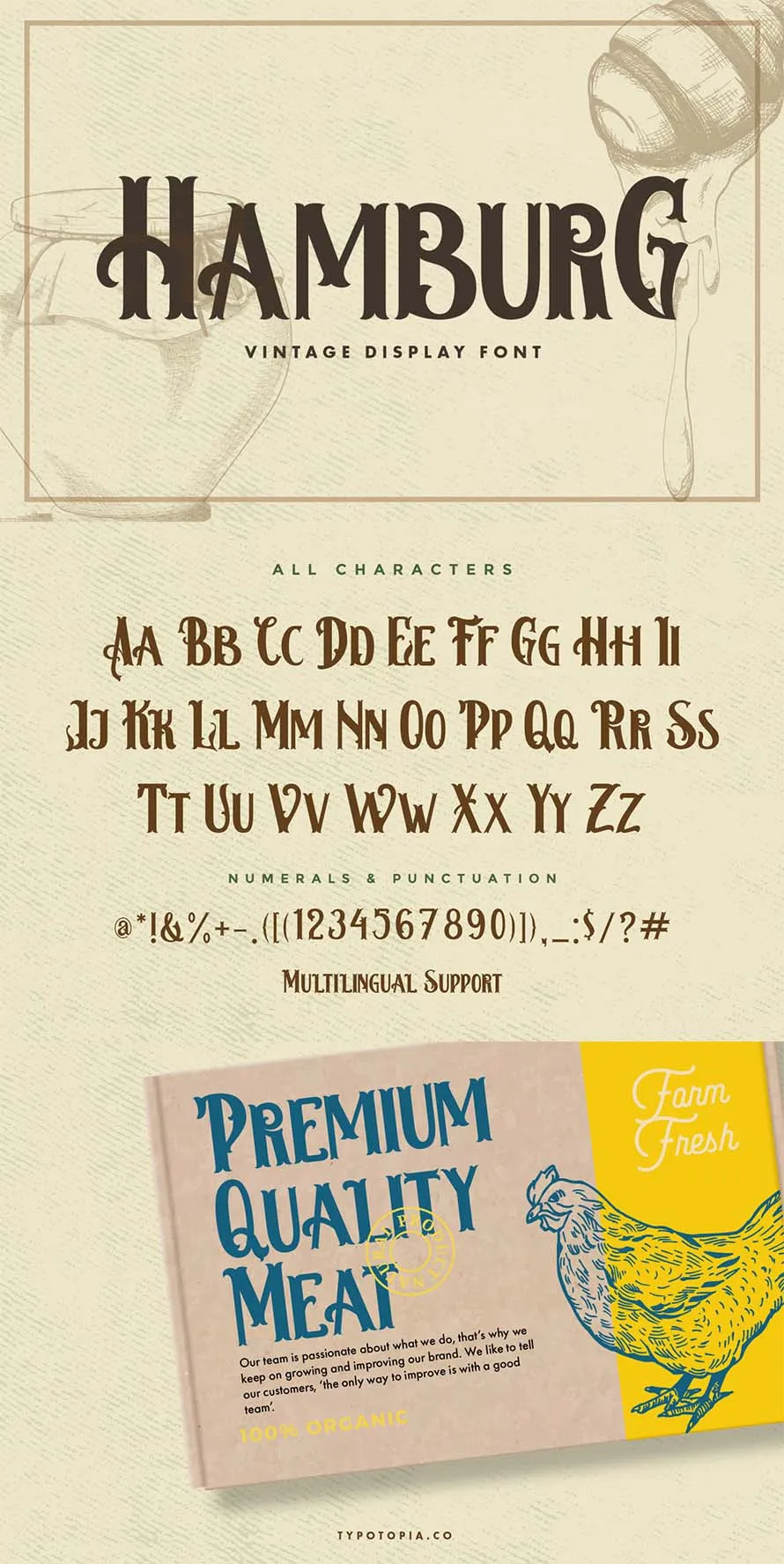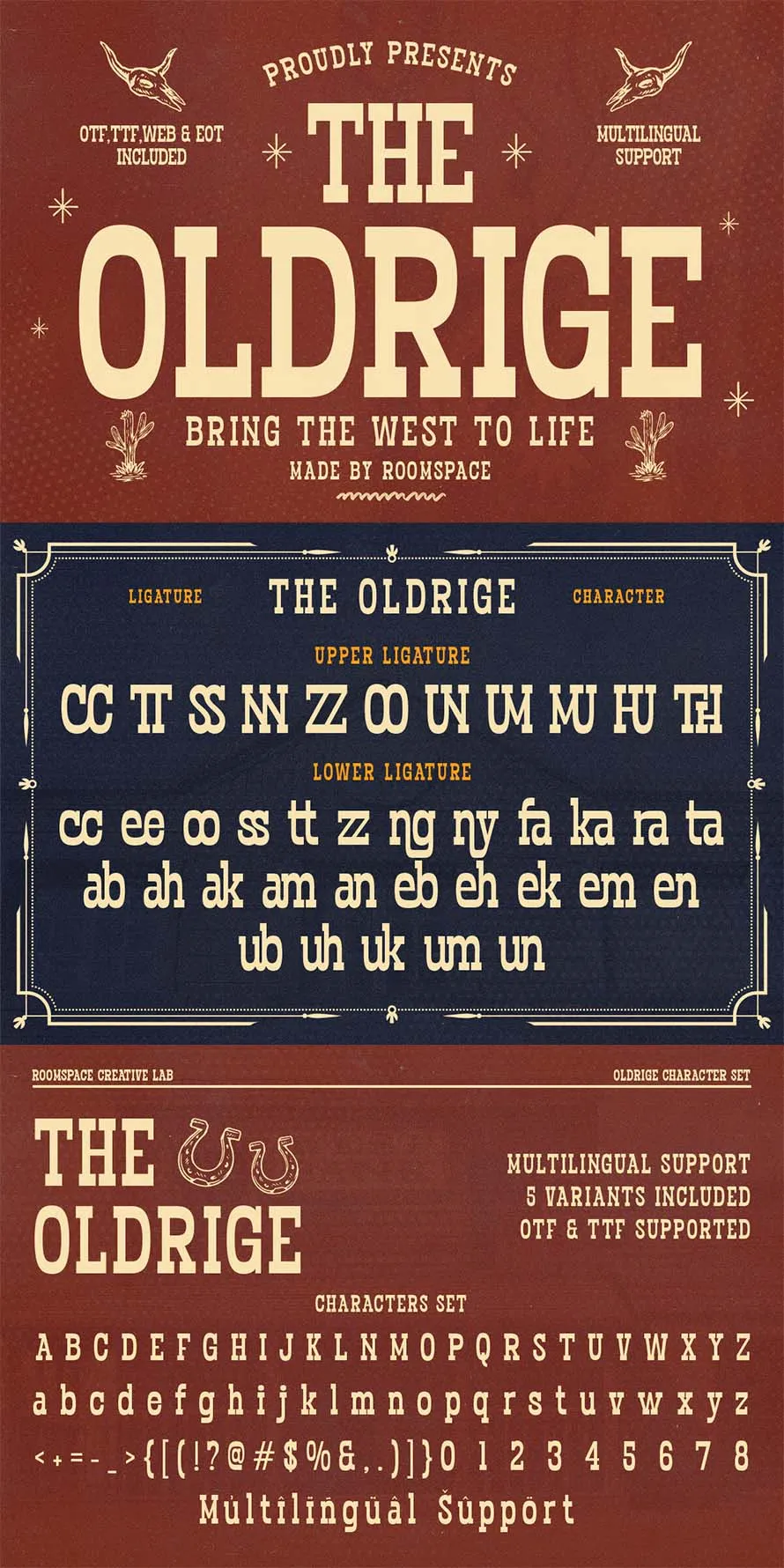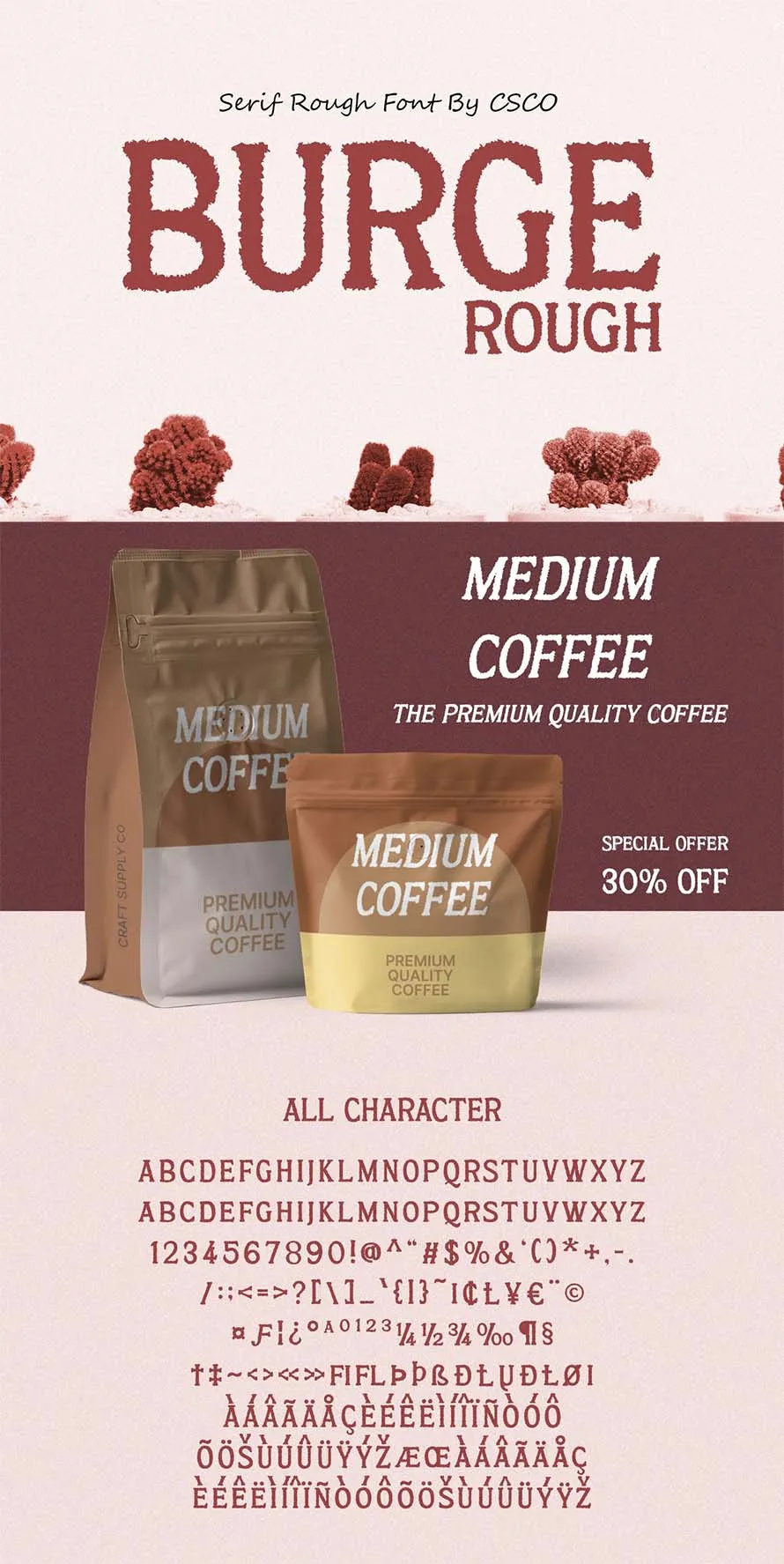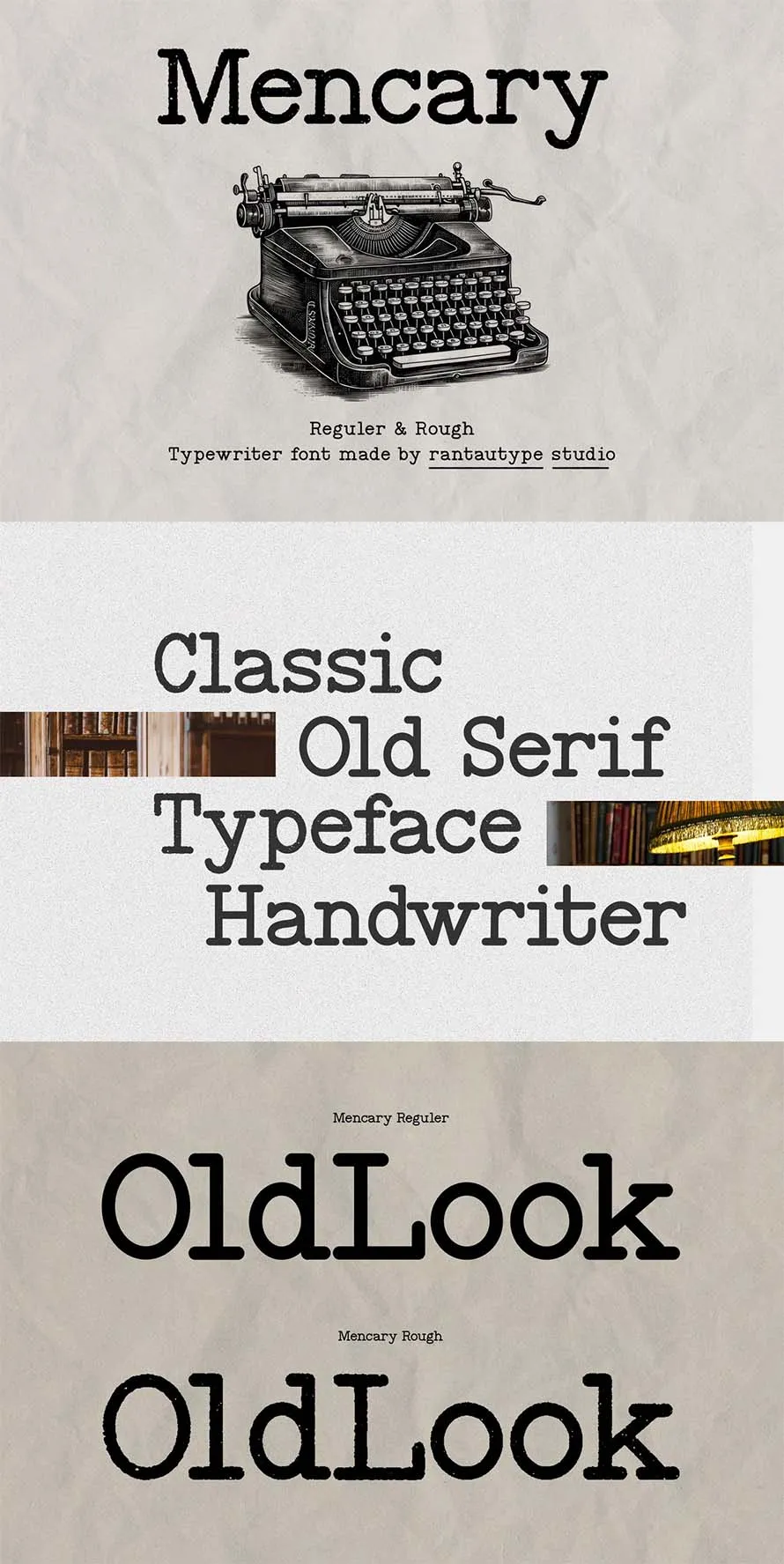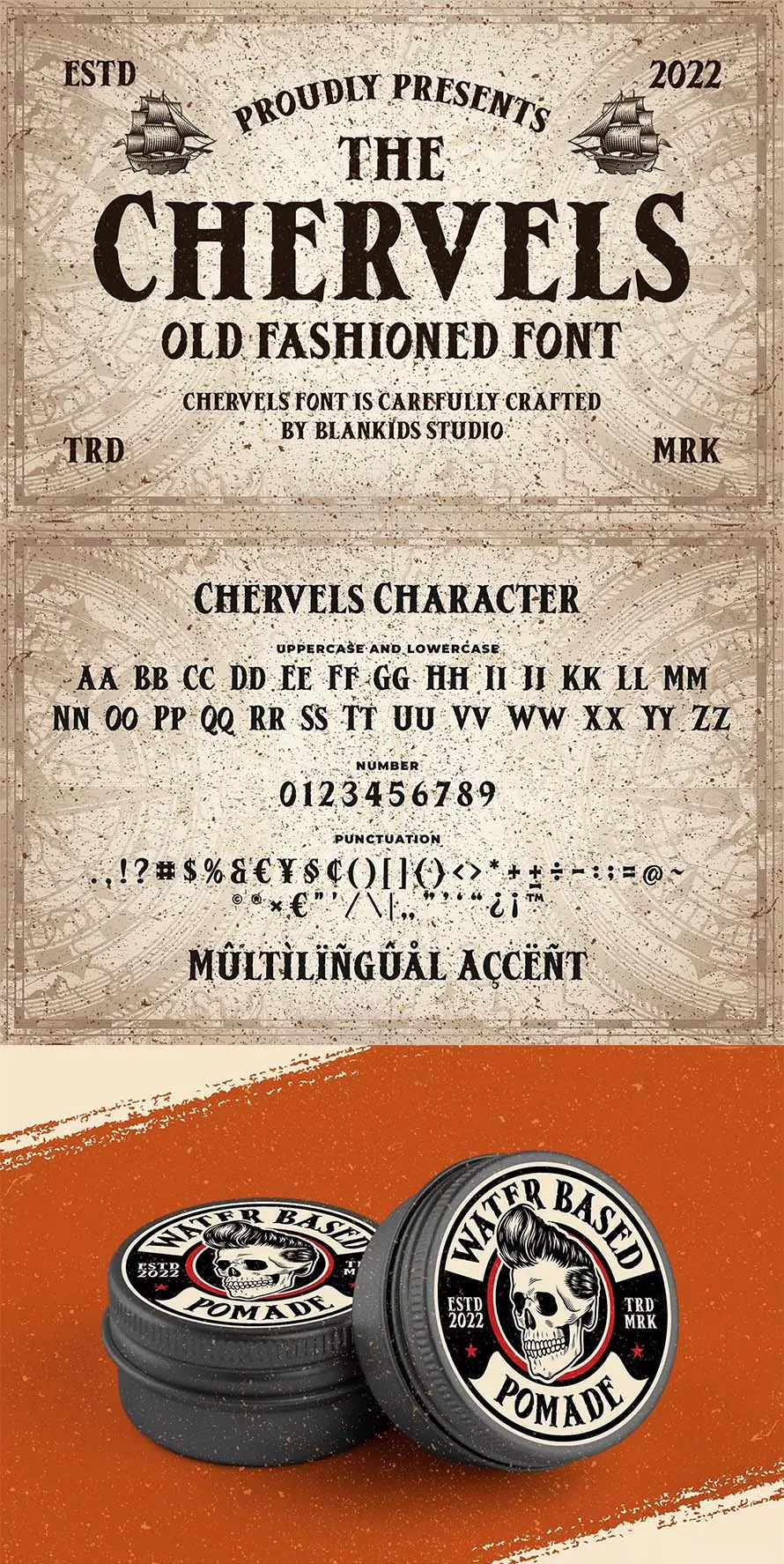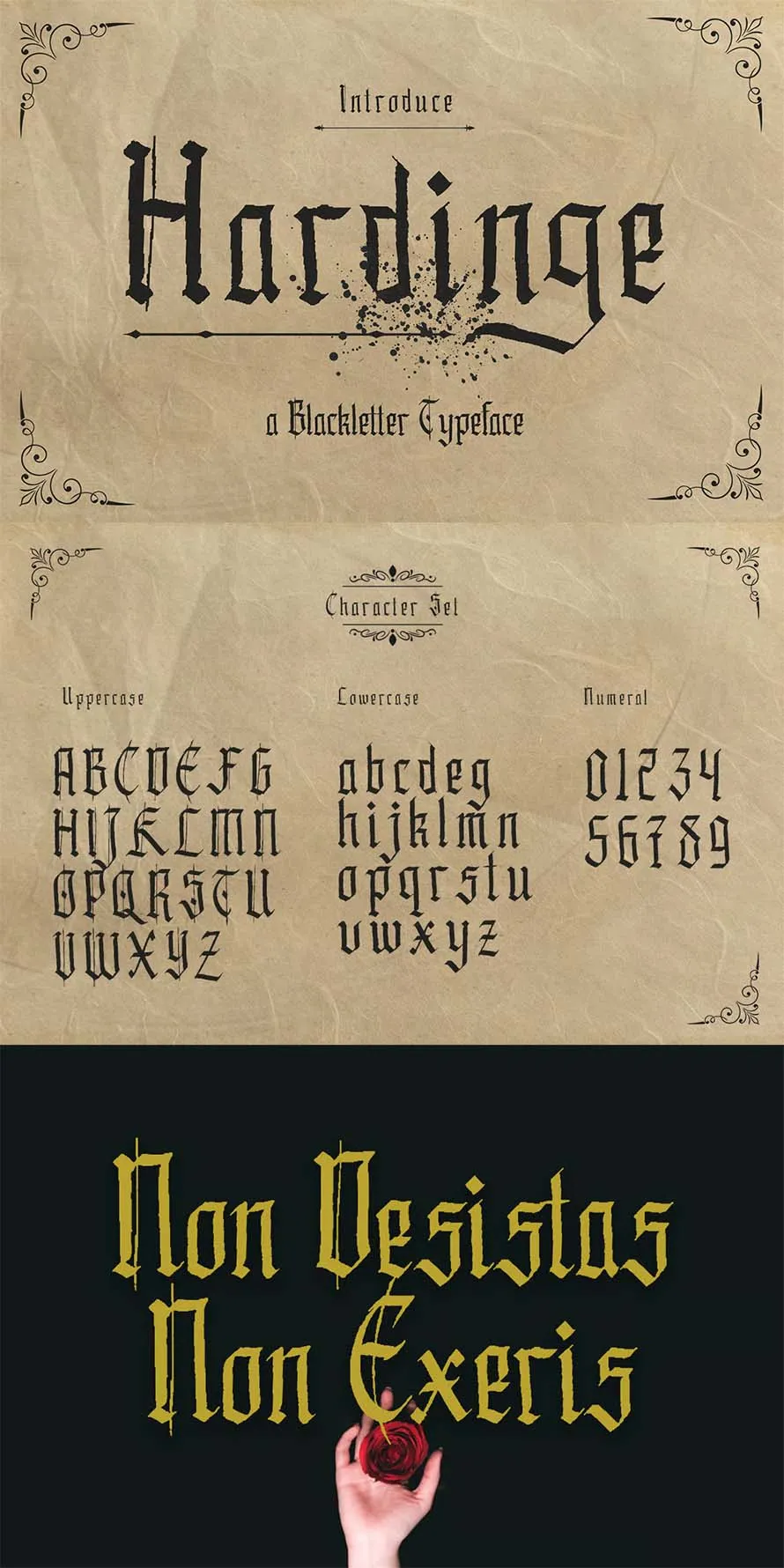
If you grew up in the 80s or 90s, you’ll love these old style serif fonts. This hand-picked collection brings back that classic print shop feel, with lettering like the kind you saw on cereal boxes, book covers, and record sleeves. Download the best old style serif fonts, and use classic serif fonts for logos, posters, or any project that needs a vintage look.
Old style fonts came from early printing presses, long before computers existed. They have low contrast strokes and rounded serifs comfortable to read in both print and digital designs.
Many designers now mix vintage retro fonts with modern serif fonts to build logos that look old and new at once. This combo works great for coffee shops, clothing brands, and small business labels that want a hand made look without losing readability on screens.
25+ Old Style Serif Fonts for Classic Logos
Vintage Classic Serif – Old Castle
Old Castle is a vintage serif font with a classic look. It has balanced letters and a soft old style feel.
Hamburg Vintage Old Style Serif Fonts
Hamburg is a vintage style font used for simple design work. It fits logos, templates, brochures, videos, ads, and branding.
Oldridge – Western Vintage Display Font
Oldridge is a western style display font with a bold old look. It feels like old frontier signs and posters. It is used for logos, packaging, signage, and headlines.
Burge Rough Old Style Serif Fonts
Burge Rough is a serif font with a rough vintage look. It mixes old style letters with a modern feel.
Mencary A Old Typewriter Font
Mencary is a typewriter style font inspired by old writing machines. It comes in clean and rough styles for different looks.
Chervels an Old Fashioned Font
Chervels is an old fashioned font with a playful vintage look. It is used for book covers, posters, packaging, logos, and merch.
Hardinge – Blackletter Style Typeface
Hardinge is a blackletter style font with a classic old look. It is used for logos, branding, prints, and business cards.
Bistern Vintage Old Style Serif Fonts
Bistern is a vintage style font inspired by old signs and lettering. It has a strong and solid look with a Victorian feel.
It is used for headlines, logos, clothing, invitations, packaging, and ads. It includes letters, numbers, symbols, and decorative extras for simple design work.
Daewon – Greek Font Style
Daewon is a Greek style font used for simple design work. It looks good on posters, book covers, flyers, invitations, and prints.
Westerion a Vintage Display Font
Westerion is a vintage display font with a simple old style look. It is used for t-shirts, quotes, logos, crafts, and basic design work.
Rubbero – Rubber Stamp Condensed Font
Westerion is a vintage display font with a simple old style look. It is used for t-shirts, quotes, logos, crafts, and basic design work.
Sabatons Script – Regular & Stamp style
Sabatons Script is a handwritten font with two styles, regular and stamp. It is used for logos, clothing, invitations, branding, packaging, and ads.
Alburgone – Display Typeface
Alburgone is a hand lettering display font with a nostalgic look. It includes numbers, punctuation, multilingual support, and PUA encoding.
Brains Courage Old Style Serif Fonts
Brains Courage is a Victorian serif font with a classic old look. It is inspired by old signs from the 60s and 70s. It is used for logos, labels, books, magazines, cards, packaging, and ads. It works for simple formal design work with a vintage feel.
Ronders Vintage Old Style Serif Fonts
Ronders is a vintage lettering font with a bold old style look.
Amoky Typeface Grunge Style
Amoky Typeface is a font set with three styles like grunge, lines shading, and stamped.
Sacred Letter Handwritten Font
Sacred Letter is a handwritten font with a soft flowing style. It has special letter shapes and easy access to extra glyphs.
Black Krown Bold Old Font
Black Krown is a bold medieval style font with a handmade look. It is inspired by old lettering and tribal designs.
Oldventure Brush Style Font
Oldventure is a brush style font made with hand drawn strokes.
Bonie – Vintage Font
Bonie is a vintage font with extra letter styles like alternates and ligatures.
The Amberton – A Classic Script
Logos using Horse Saguaro Vintage Font
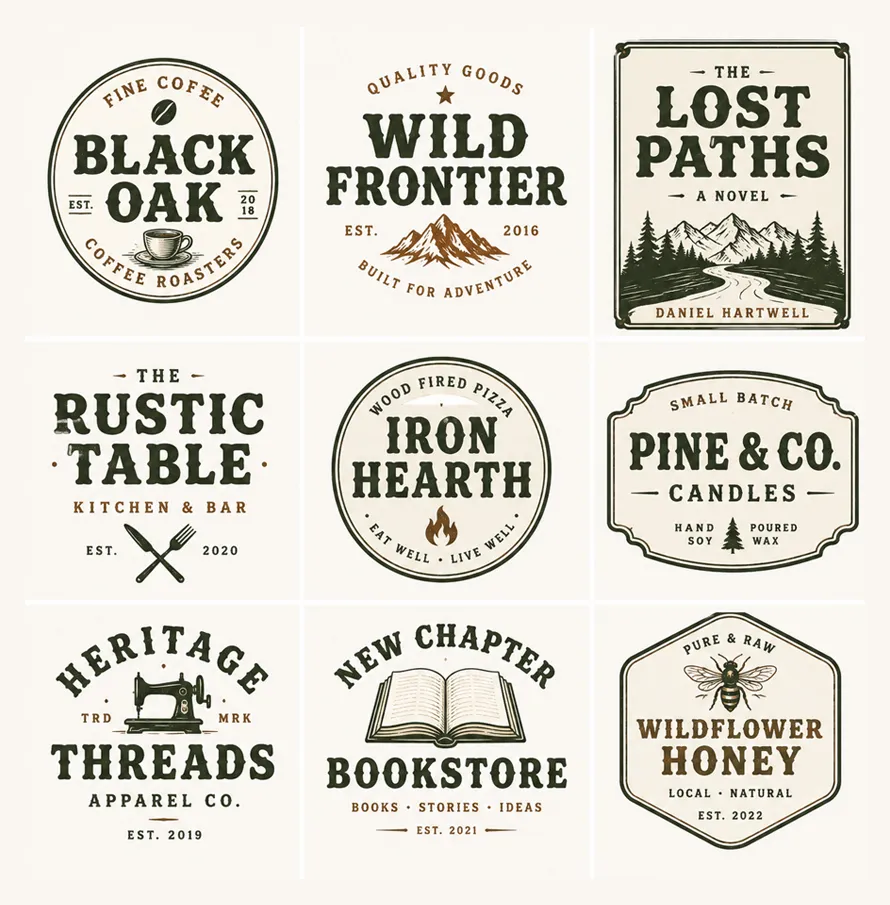
Logos using The Amberton – A Classic Script
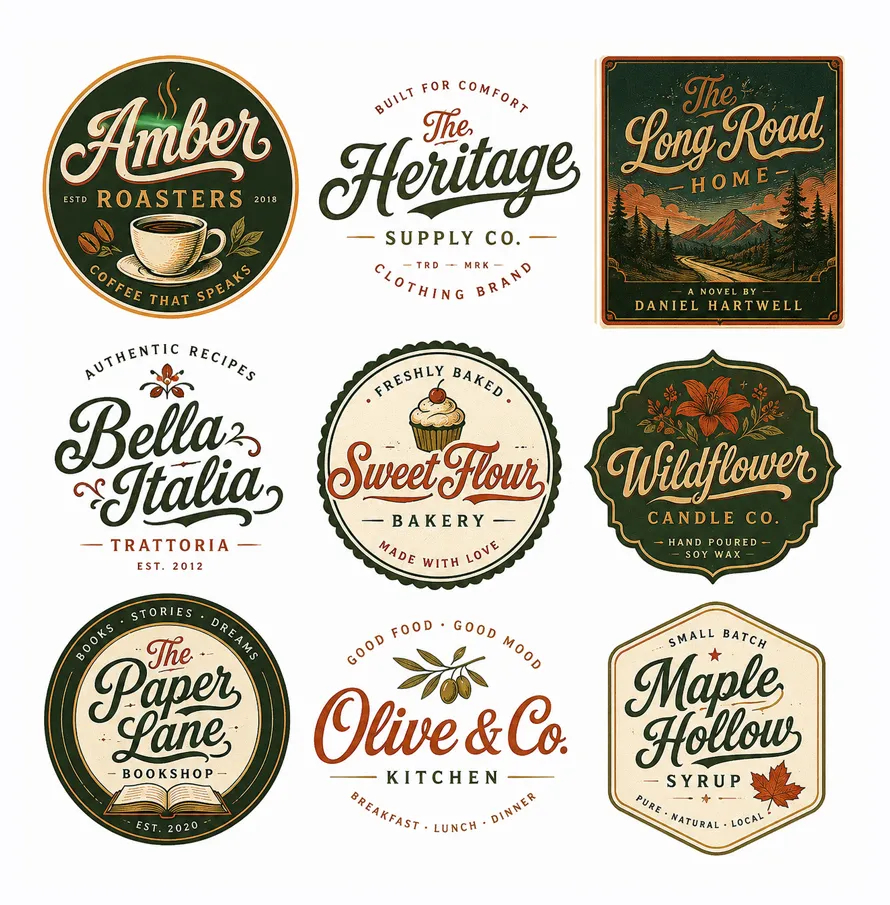
Logos using Bonie – Vintage Font
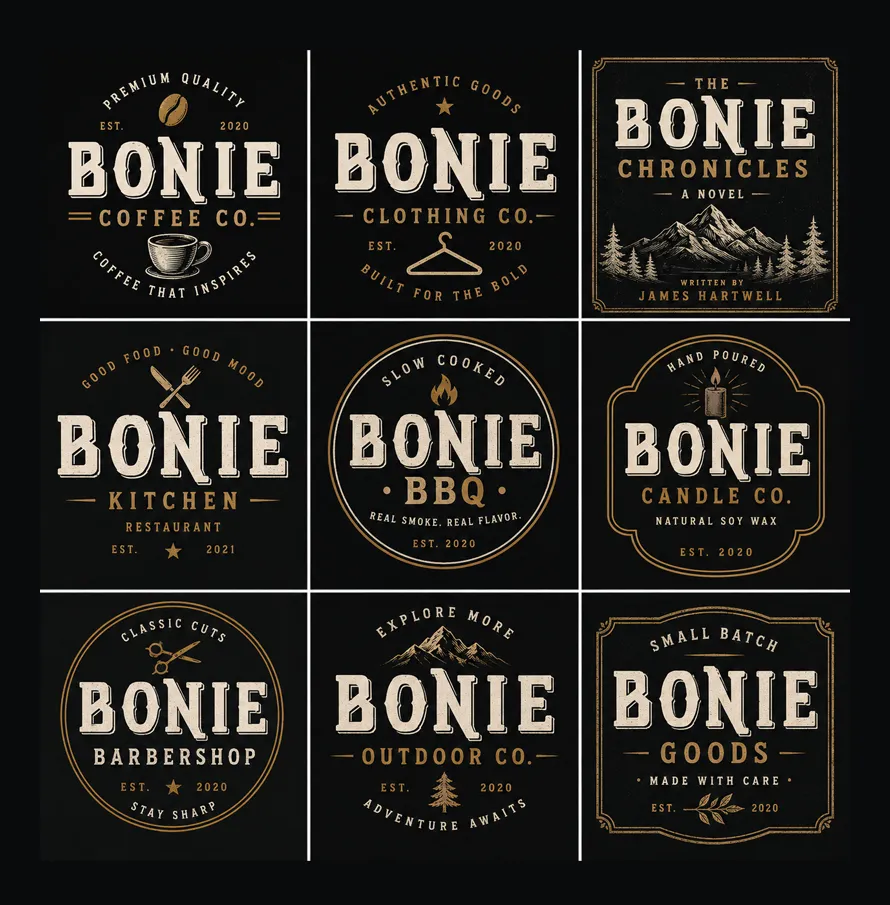
Logos using Rubbero – Rubber Stamp Condensed Font